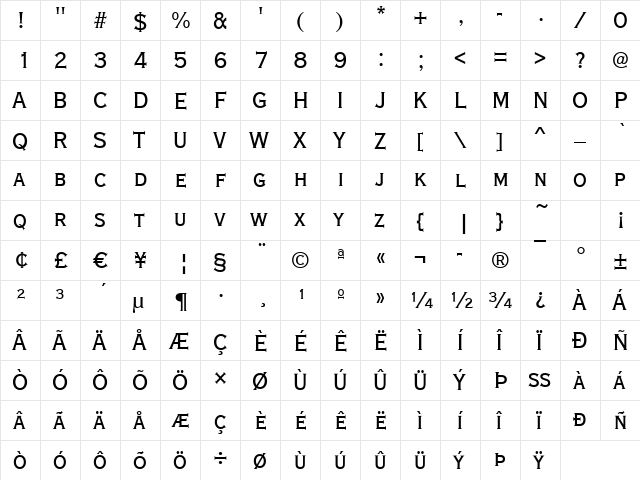
Copperplate-Cd Regular
Design Context for Copperplate-Cd Typeface
Copperplate-Cd takes a measured approach to typography — its balanced proportions and neutral character make it a reliable workhorse for both digital and print work.